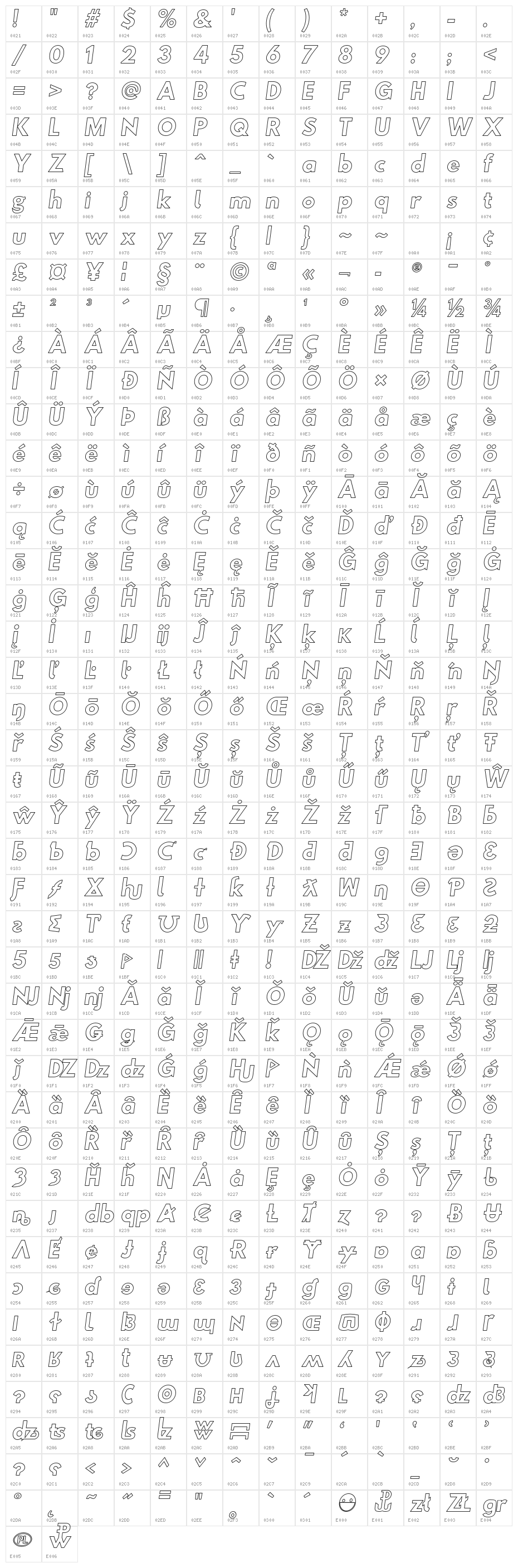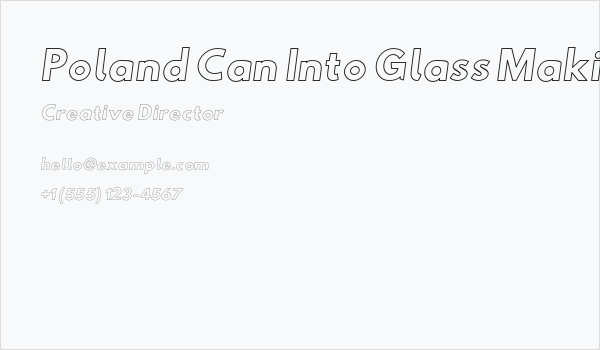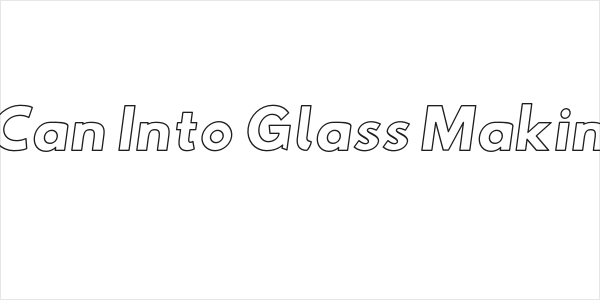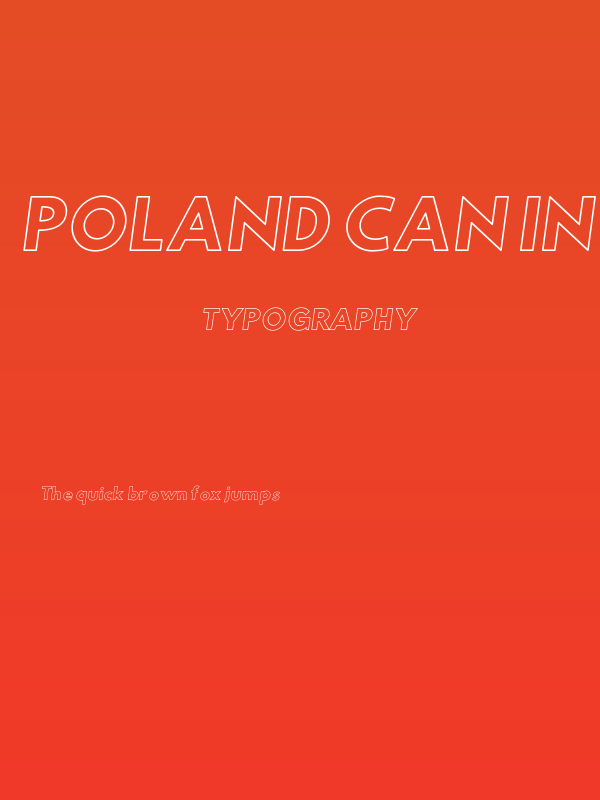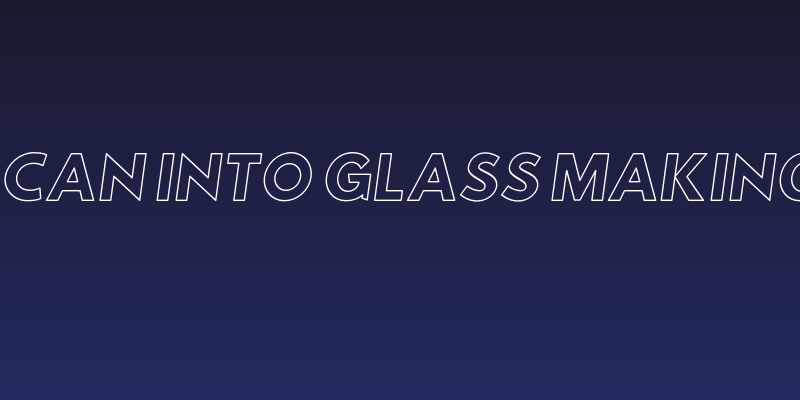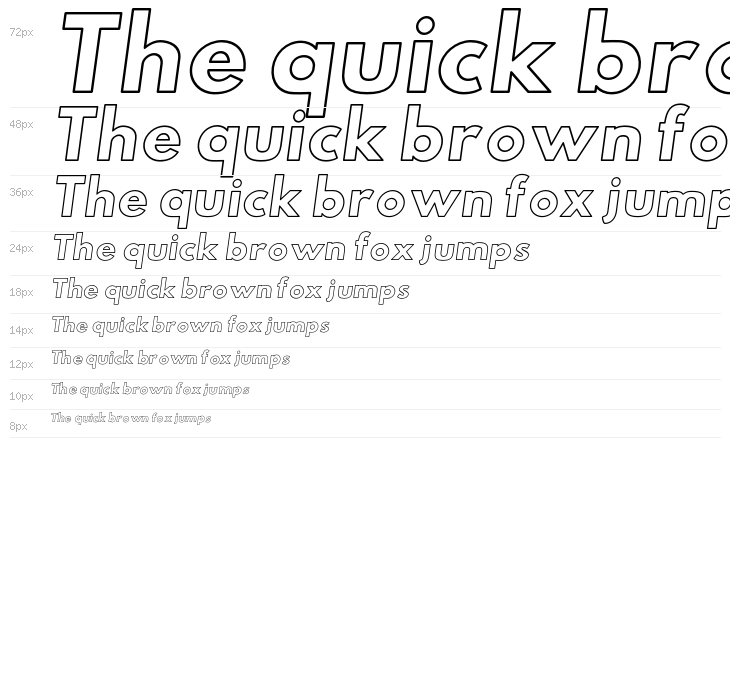
Poland Can Into Glass Makings Italic Font
Poland Can Into Glass Makings Italic Description
This font features a bold, outlined style with a modern and geometric appearance. The uppercase and lowercase letters maintain a consistent thickness throughout, creating a uniform look. The characters are slightly italicized, adding a dynamic and forward-leaning aspect to the text. The numbers and special characters follow the same outlined design, ensuring cohesion across all elements. This font's clean lines and open spaces make it highly legible, even at smaller sizes. The overall aesthetic is contemporary and versatile, suitable for a variety of design applications.